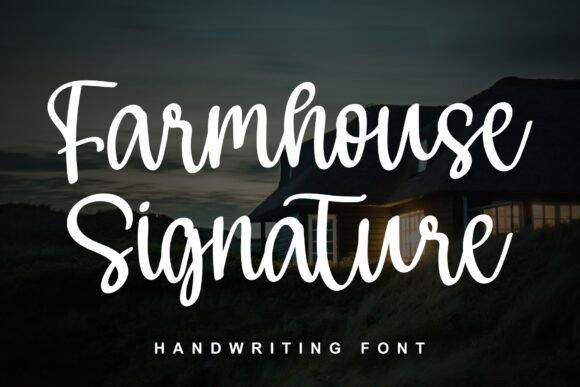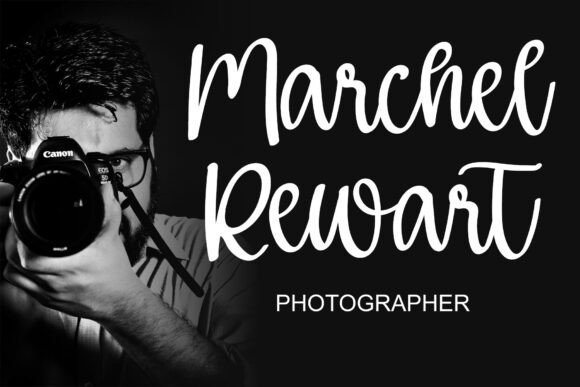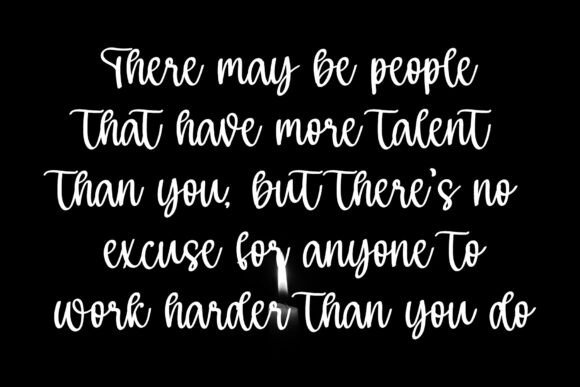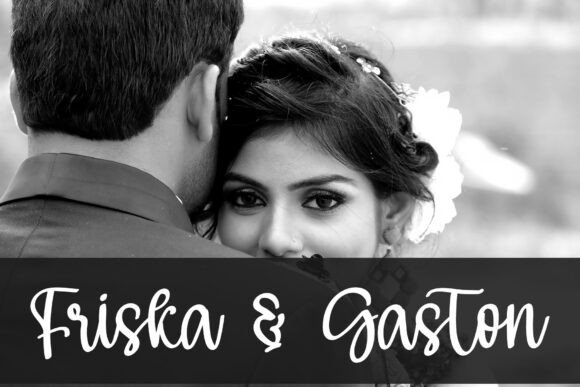
Farmhouse Signature Font
About the Farmhouse Signature Font
We are excited to introduce Farmhouse Signature Font, a must-have typeface for any serious designer. Farmhouse Signature is a magical handwritten font carefully created to give a touch of elegance to your designs. Whether you’re looking for fonts for Instagram or calligraphy scripts for DIY projects, this font will turn any creative idea into a true piece of art!
Farmhouse Signature excels in projects requiring a touch of rustic elegance. It’s ideal for logos, short headlines, invitations, and packaging designs where a handcrafted feel is desired. Avoid using it for large blocks of body text or UI elements; its handcrafted nature can hinder readability in extended passages.
The font’s personality is best described as charming and slightly whimsical, yet sophisticated. It evokes a feeling of warmth and handcrafted quality.
Pairing Farmhouse Signature with a clean sans-serif like Open Sans for body copy or a classic serif like Garamond for supporting text creates a balanced and visually appealing design. Consider a simple geometric sans-serif for a modern contrast, or a playful script font for a more cohesive, handwritten aesthetic.
Farmhouse Signature Font Usage Examples
Farmhouse Signature Font Example